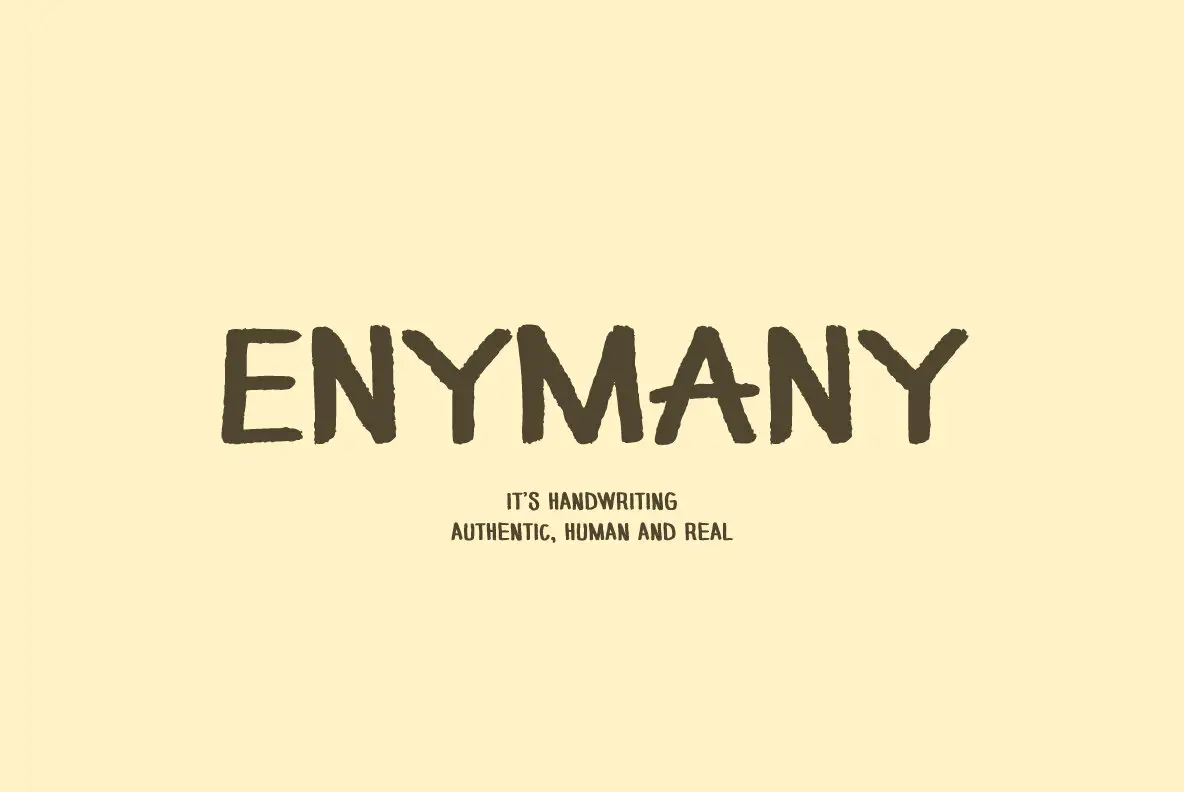
Enymany Font
Enymany
Enymany is a captivating handwritten font designed to embody the beauty of imperfection and authenticity. With its organic strokes and personal touch, this typeface brings warmth and reality to any project seeking emotional depth. Enymany is perfectly suited for branding, packaging, posters, invitations, and social media designs that wish to exude an approachable and genuine charm. Each character is thoughtfully crafted to ensure both balance and legibility while maintaining the allure of natural handwriting. Infuse your designs with life and emotion using Enymany—a font that communicates honesty and human warmth.Enymany: Embrace Authentic Imperfection